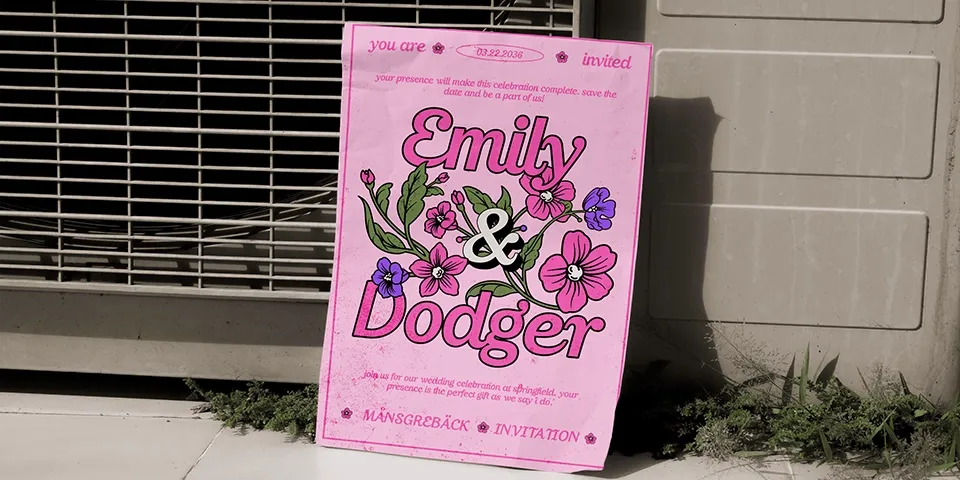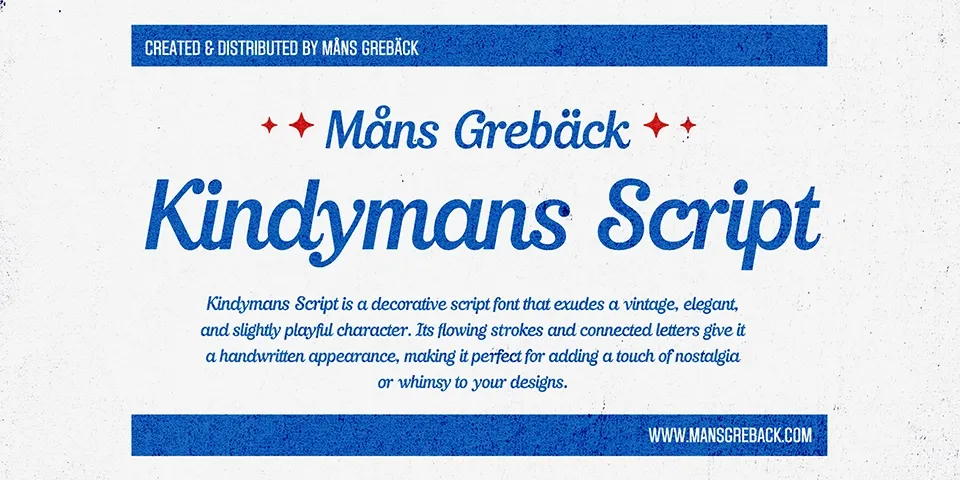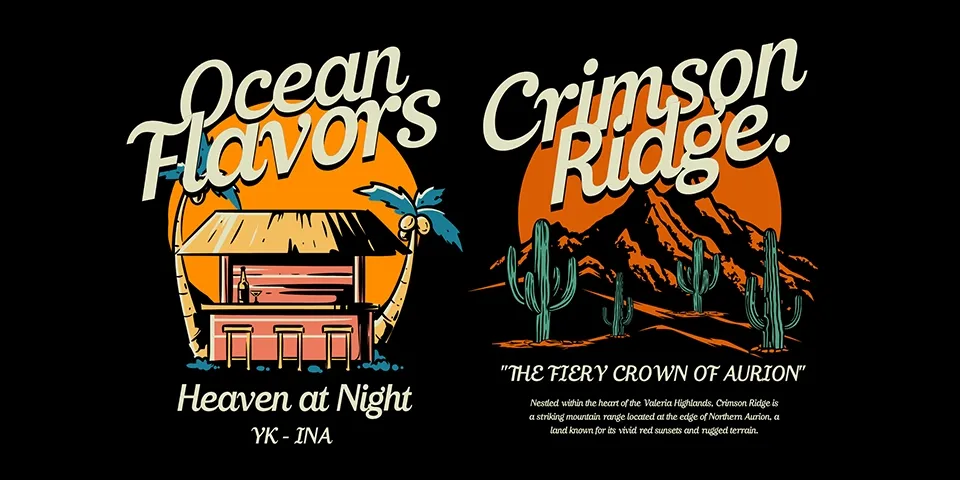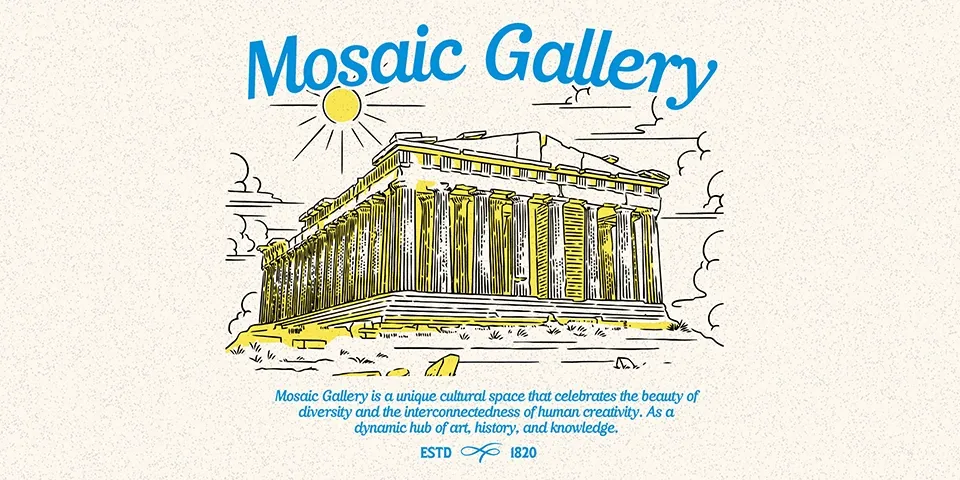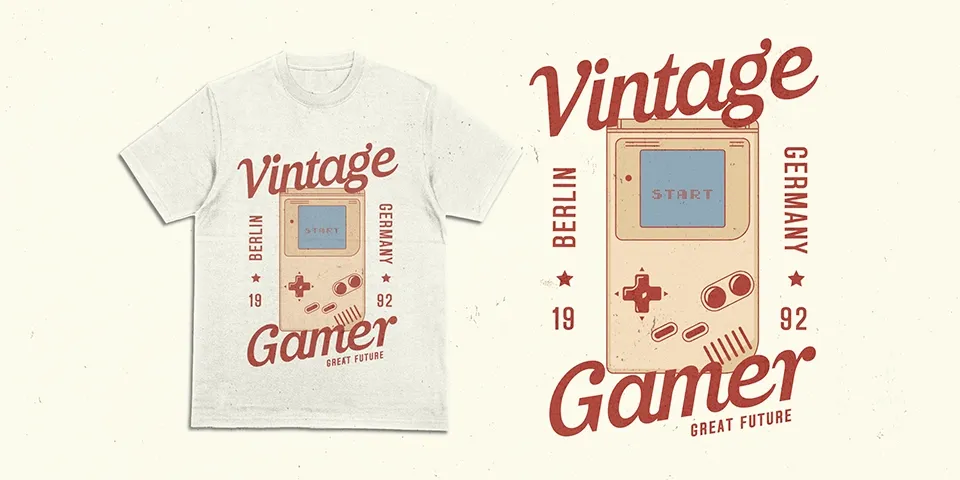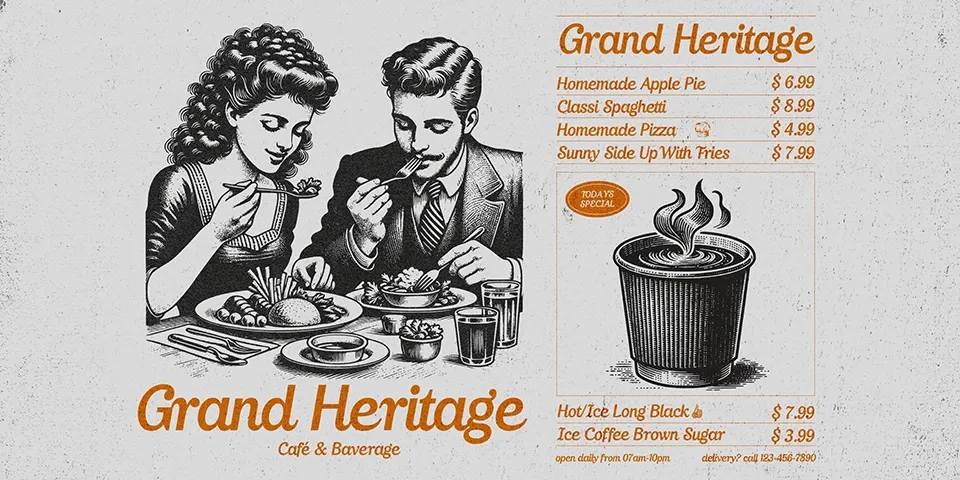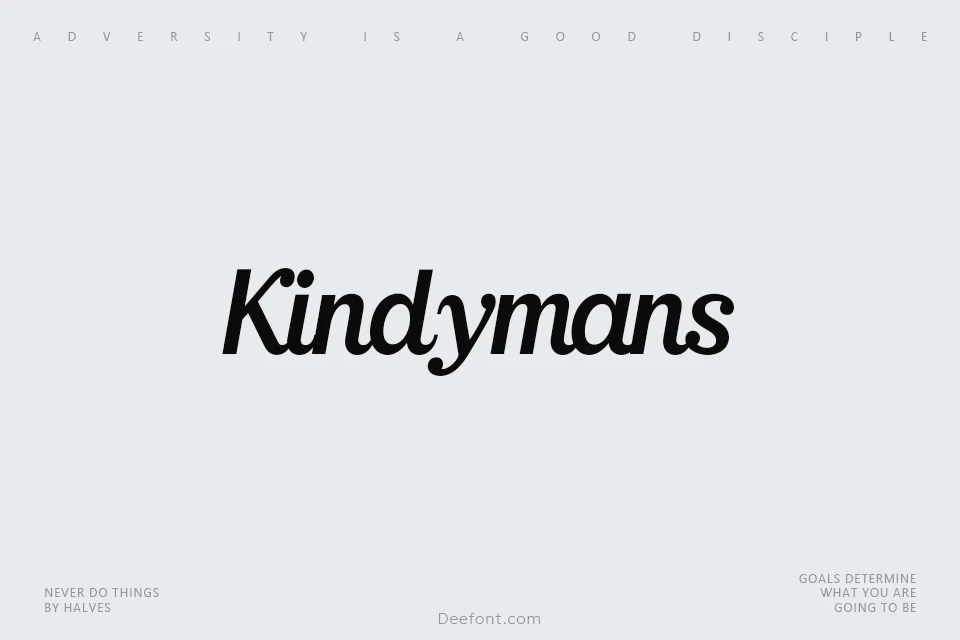
Kindymans Script Font
Kindymans Script Font is a beautifully crafted script font designed by Måns Grebäck. It offers a unique and elegant style, making it suitable for personal projects that require a touch of sophistication. With its distinctive flair, Kindymans Script can enhance the visual appeal of various documents, invitations, and creative works. Its versatility and aesthetic appeal make it a popular choice among those seeking to add a personal touch to their designs.